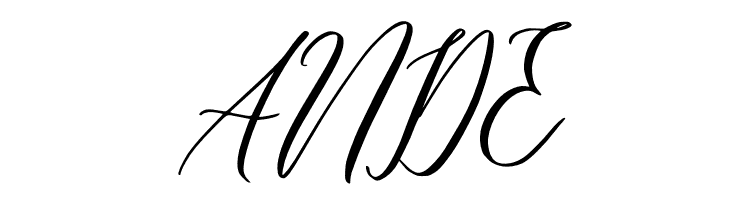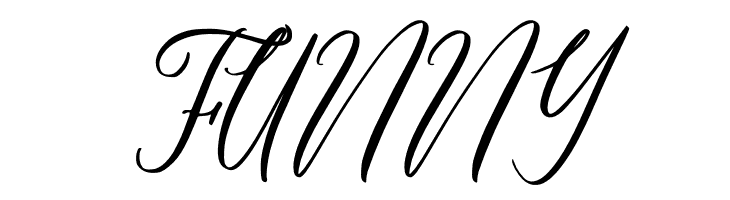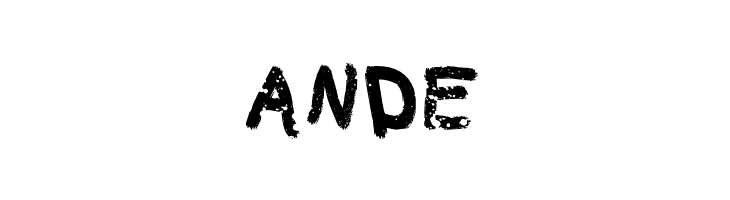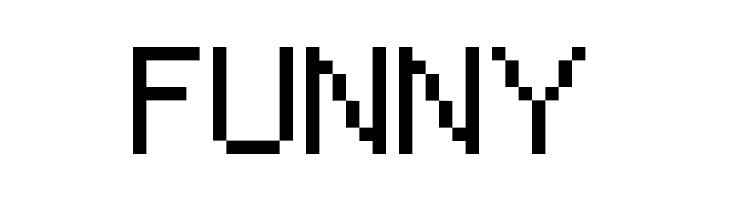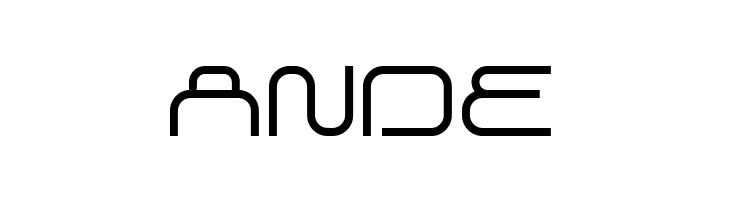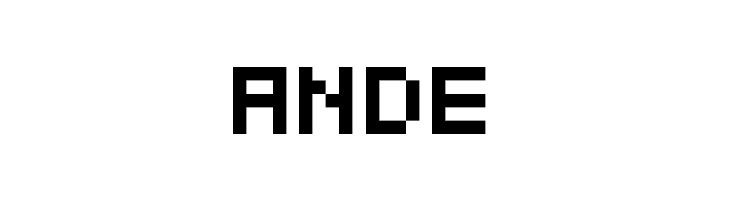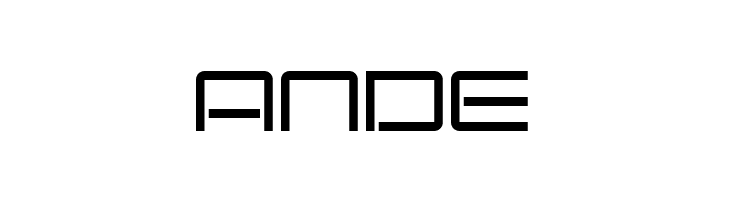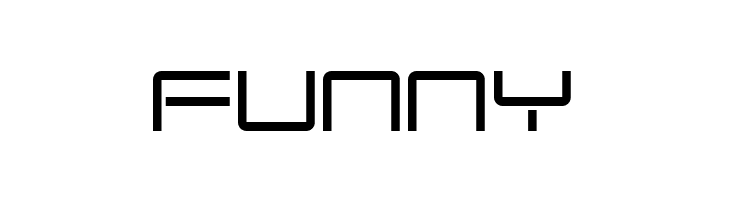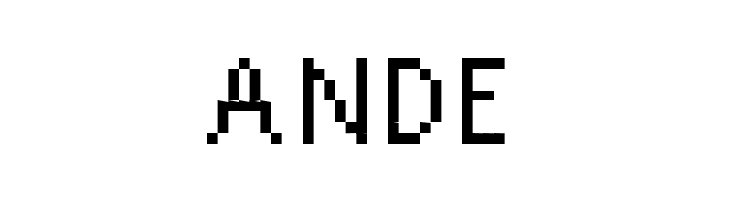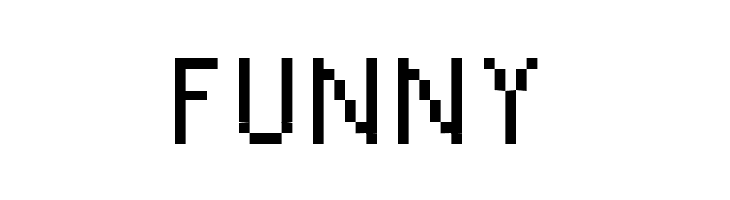
• Aka-AcidGR-4B20
A bold, geometric font with a digital, pixelated style.
• Aka-AcidGR-5X5
A pixelated, retro-style font with a blocky, digital appearance.
• Aka-AcidGR-ArialPixel
A pixelated, monospaced font with a retro digital aesthetic.
• Aka-AcidGR-Atomic
• Aka-AcidGR-Compacta
A bold, narrow font with a strong vertical emphasis, ideal for impactful designs.
• Aka-AcidGR-Cord
A bold, playful font with rounded, hand-drawn letterforms.
• Aka-AcidGR-Elektr
A pixelated, blocky font with a retro digital aesthetic.
• Aka-AcidGR-Everyday
A pixelated, retro-style font with a blocky, grid-based design.
• Aka-AcidGR-Fifindrel
A fluid and elegant script font with a handwritten style.
• Aka-AcidGR-FifiTheCat
A lively, cursive handwritten font with fluid, connected strokes.
• Aka-AcidGR-Kairee
A bold, geometric font with a digital, pixelated style.
• Aka-AcidGR-Mazew
A geometric, maze-like font with a digital, retro aesthetic.
• Aka-AcidGR-MC
A pixelated, retro-style font with a blocky, geometric appearance.
• Aka-AcidGR-Micro
A bold, geometric font with a digital, futuristic style.
• Aka-AcidGR-Mutlu
An ornate script font with elaborate swirls and flourishes.
• Aka-AcidGR-Necplus
A futuristic, geometric font with a digital aesthetic.
• Aka-AcidGR-Starmap
A pixelated, grid-like font with a retro digital aesthetic.
• Aka-AcidGR-Stunt
A bold, geometric font with a futuristic, digital style.
• Aka-AcidGR-SuperG
A futuristic and geometric font with a sleek, modern design.
• Aka-AcidGR-SystemsAnalysis
A bold, geometric font with a digital, pixel-art style.